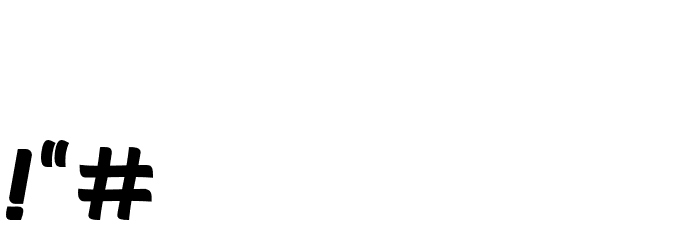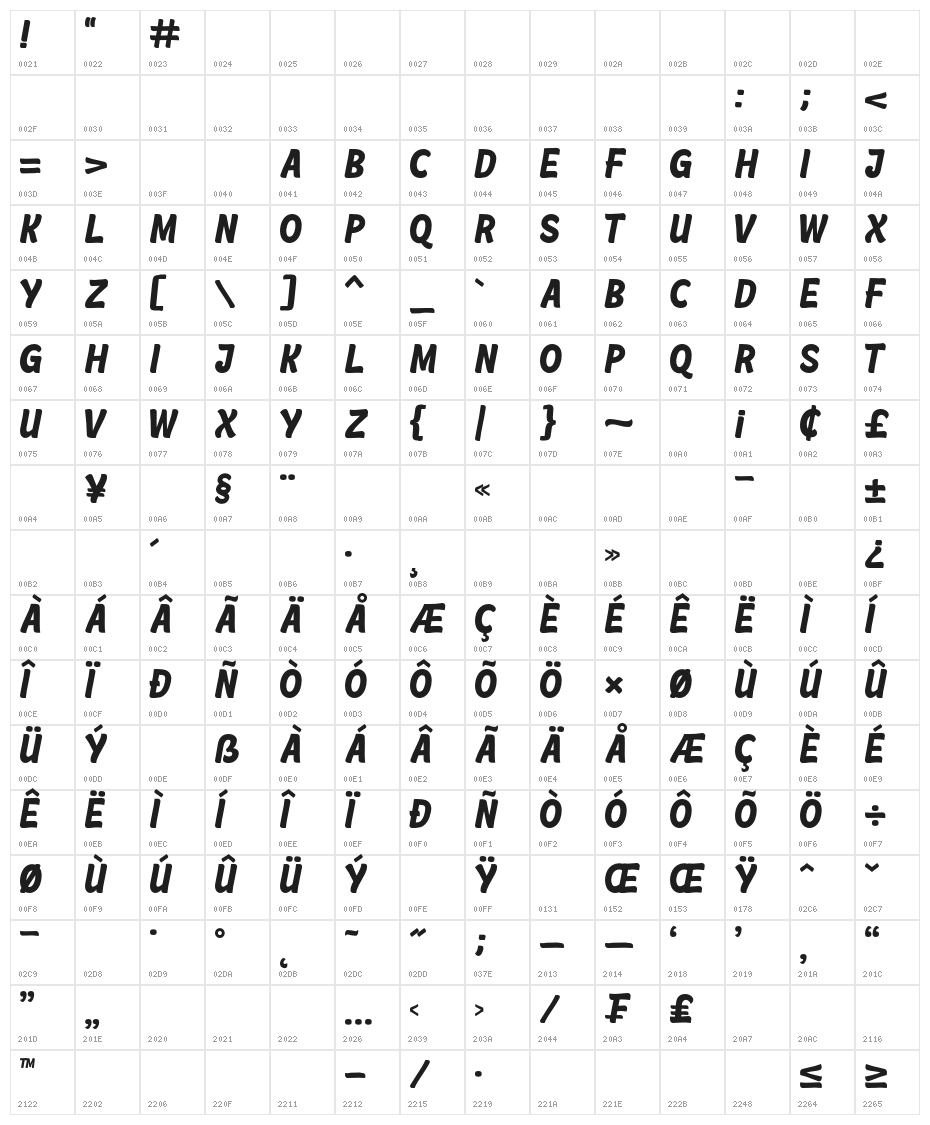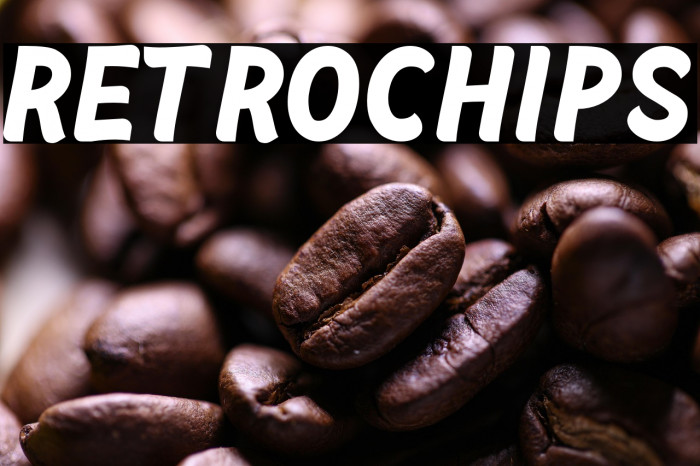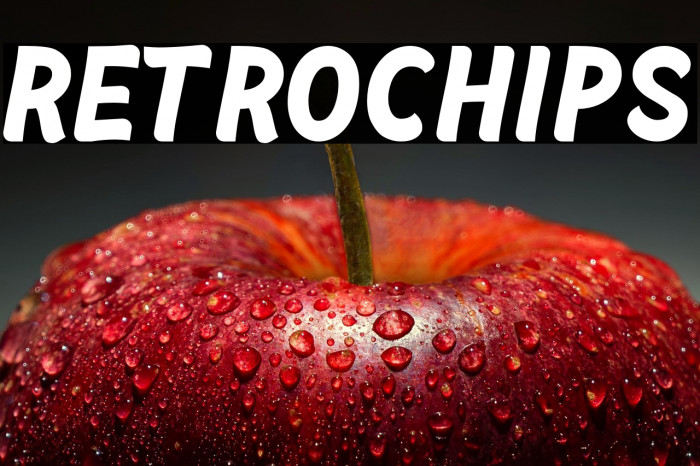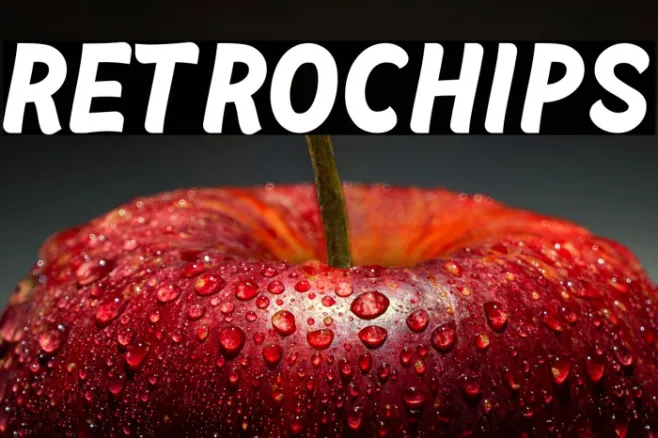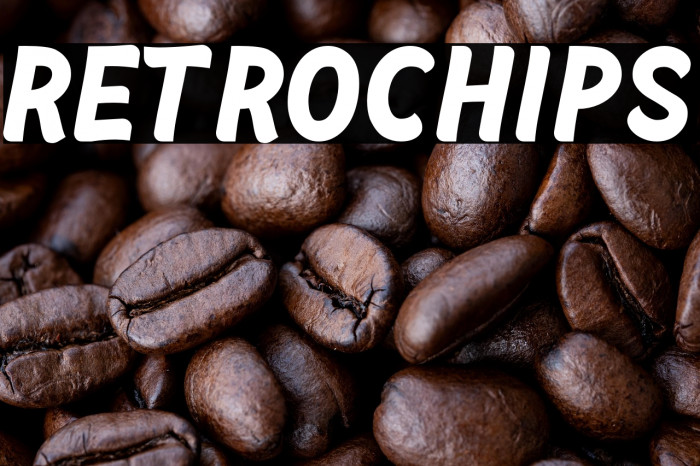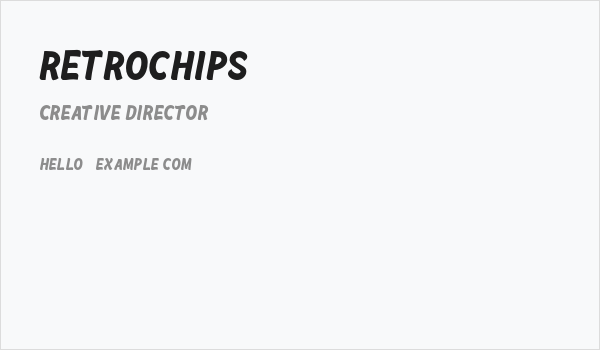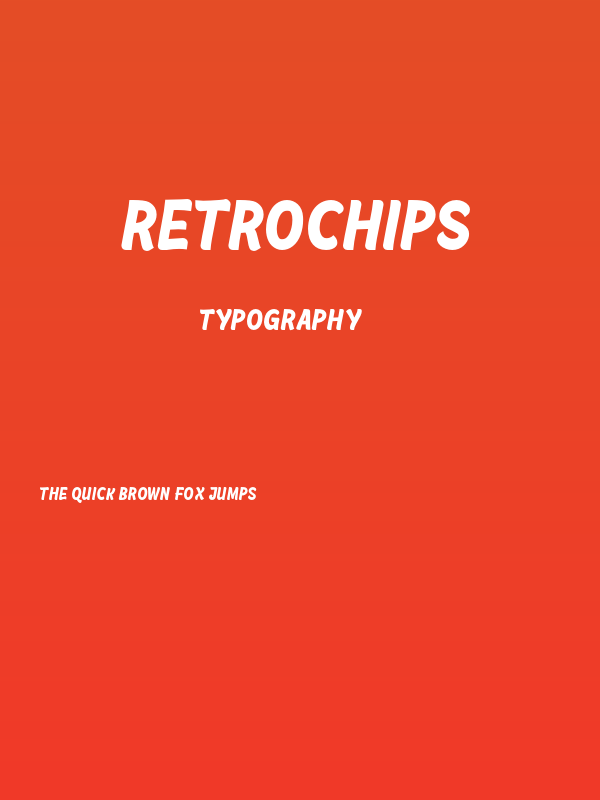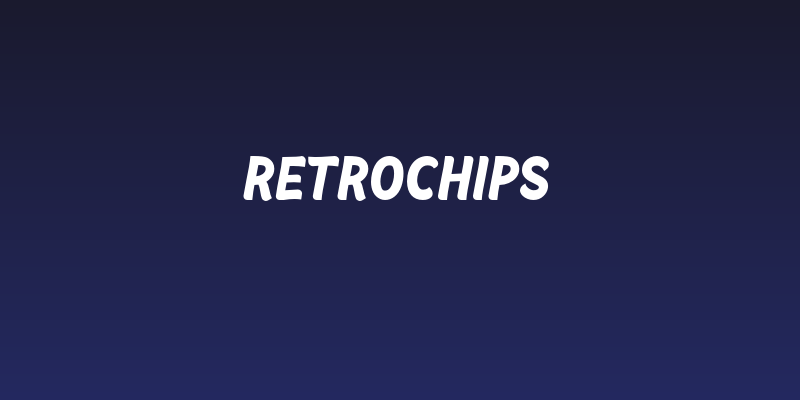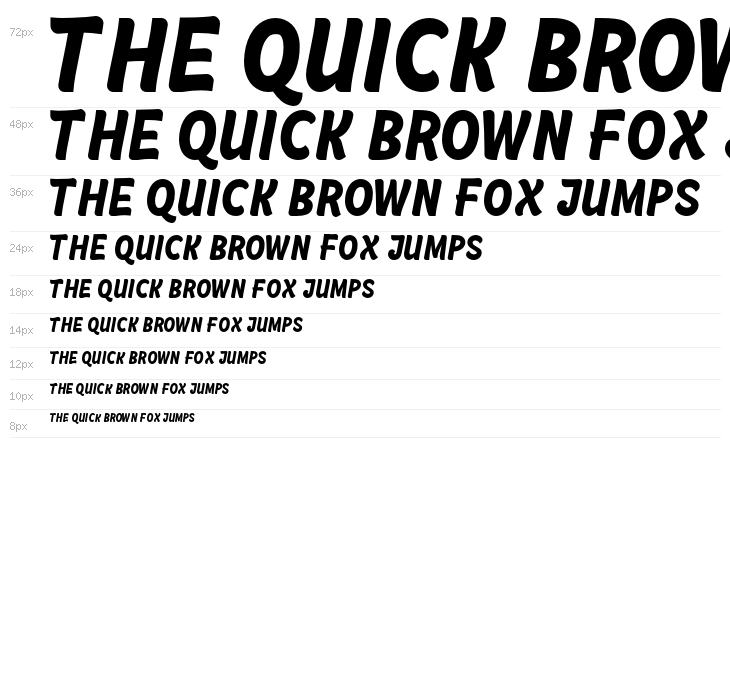
Retrochips Font
Retrochips Description
This font features a bold and playful style with a slight slant, giving it a dynamic and energetic appearance. The characters are rounded and have a smooth flow, reminiscent of retro or vintage designs. The uppercase letters are prominent and slightly condensed, while the lowercase letters maintain a consistent style, enhancing readability. The numbers and special characters follow the same design principles, ensuring a cohesive look across all text elements. This font is ideal for projects that require a fun and engaging aesthetic, such as posters, advertisements, or branding materials.
| Proposed Projects | Ideal for posters, advertisements, branding, and any project needing a fun, retro aesthetic. |